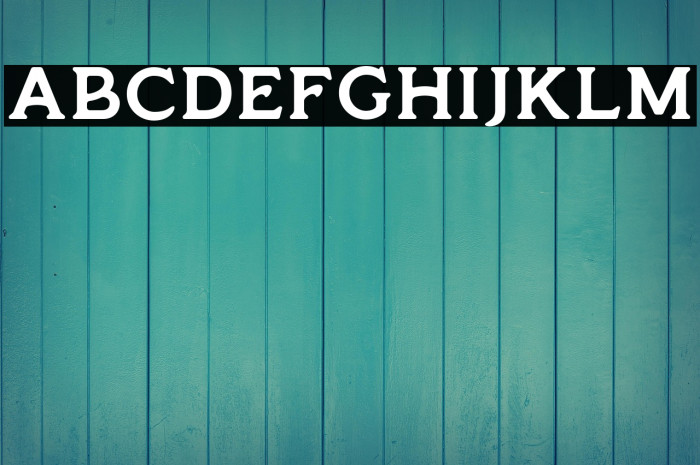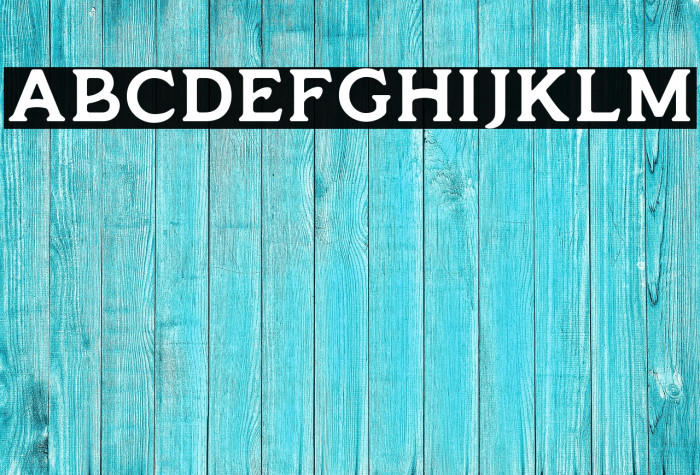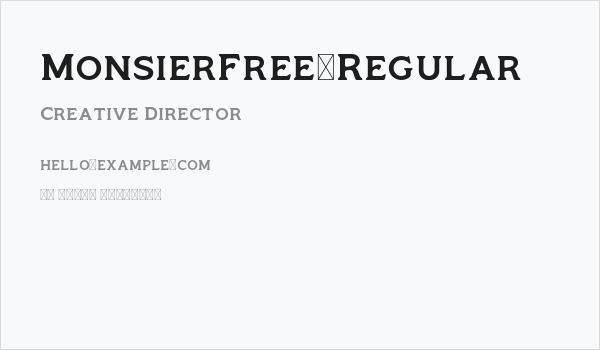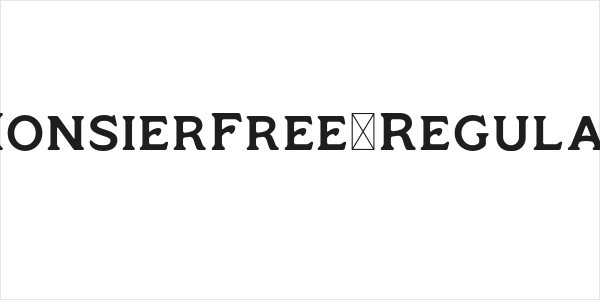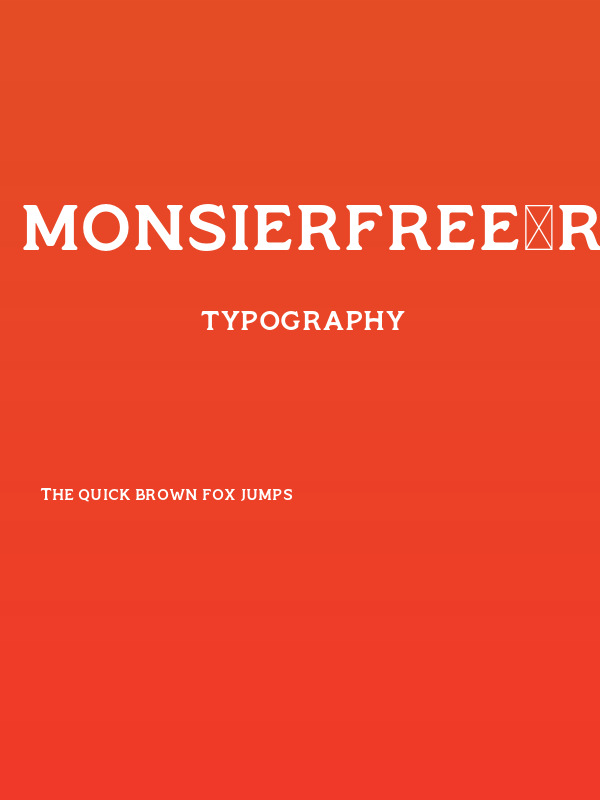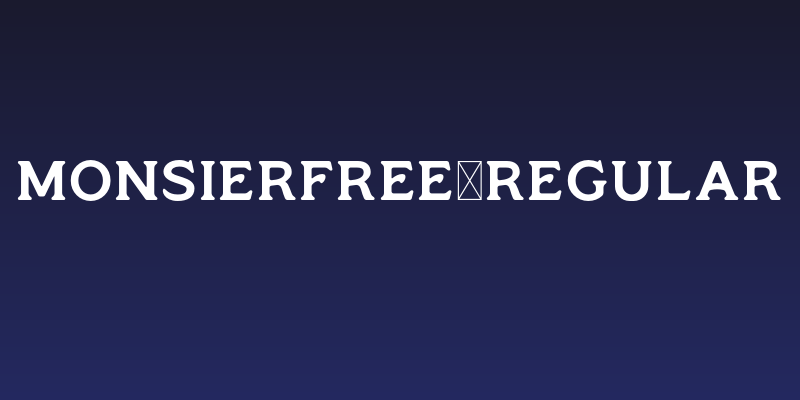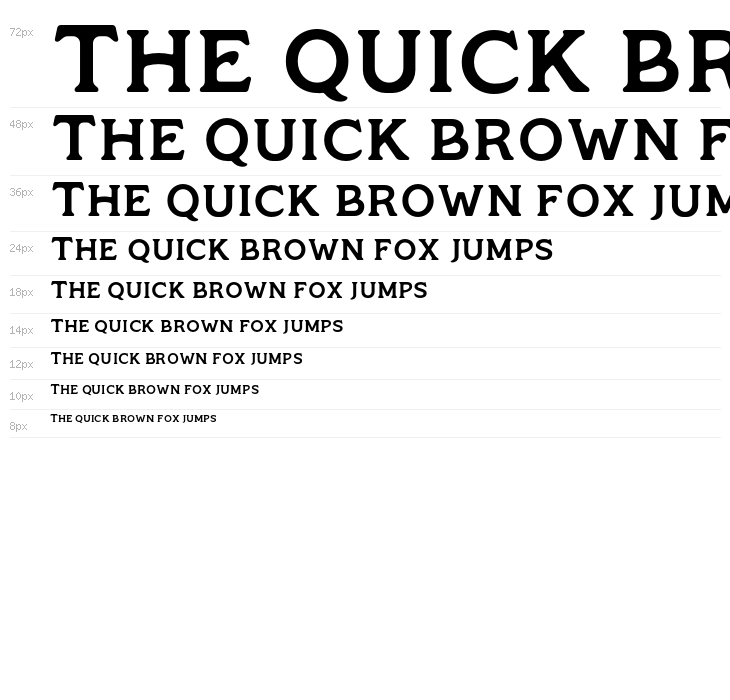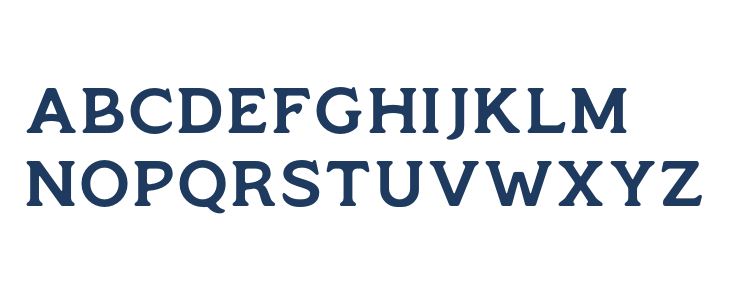
MonsierFree-Regular Font
MonsierFree-Regular Description
This font features a classic serif style with a strong presence and elegant curves. The uppercase letters are bold and well-defined, showcasing a traditional serif design that is both timeless and versatile. The lowercase letters maintain a consistent style, offering a harmonious balance between the uppercase and lowercase alphabets. The numerals are clear and easy to read, making them suitable for a variety of applications. The overall design exudes a sense of sophistication and reliability, making it ideal for formal documents and branding materials.
| Proposed Projects | Ideal for formal documents, branding materials, book covers, and editorial design. |